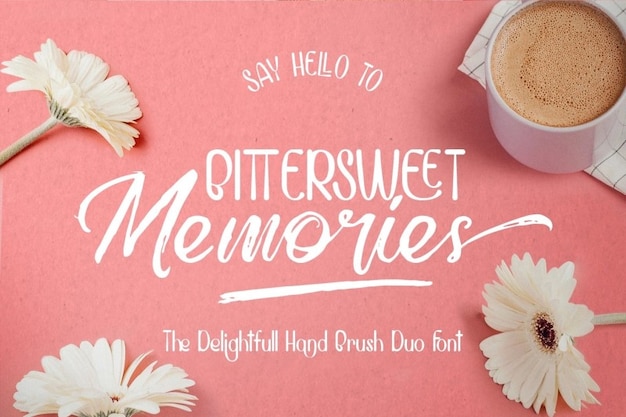
Bittersweet Memories Font
Burntilldead
"Bittersweet Memories" is a heartfelt font that beautifully emulates handwritten faux calligraphy. Ideal for bullet journals, scrapbooks, and personal projects, it captures the essence of nostalgia with its flowing lines and whimsical style. This font brings a touch of warmth and personality to your designs, making every word feel special and cherished, perfect for expressing heartfelt sentiments.